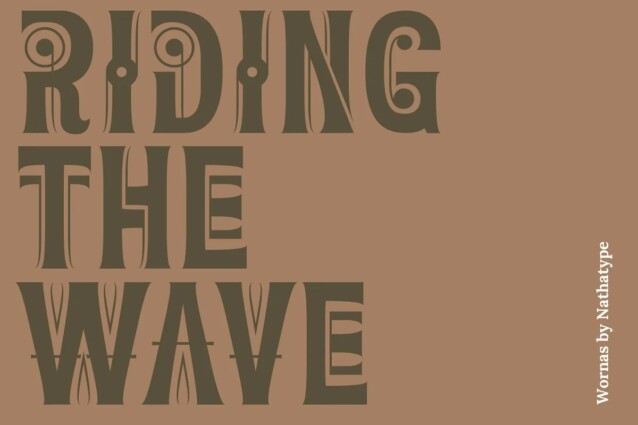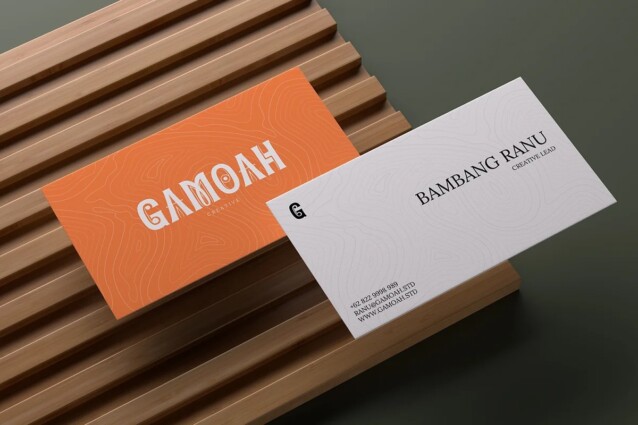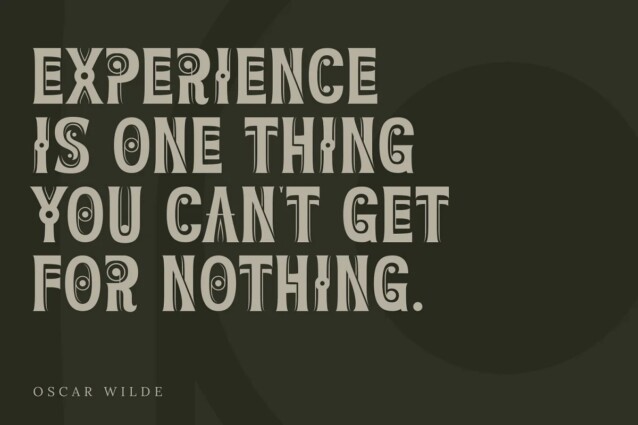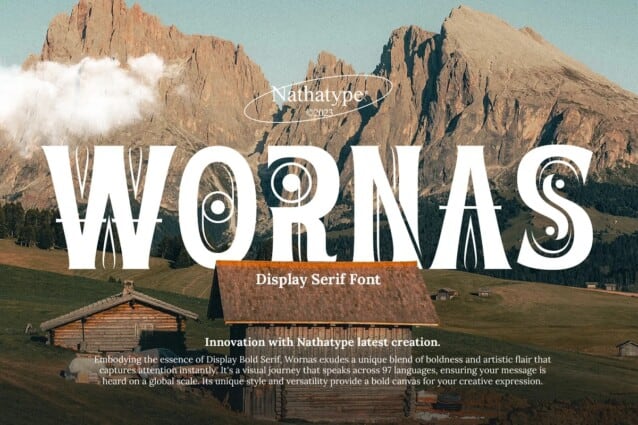
Wornas Font
Wornas Font is a bold and authentic display font crafted & designed by Din Studio. With its bold weight, Wornas makes a powerful statement. What sets it apart is its artistic flair. These unique embellishments add a layer of depth and visual interest compared to other display fonts.
The generous spacing between characters and lines in Wornas enhances legibility and creates a sense of openness. The inline details in this font are a stroke of design genius. These delicate lines run parallel to the edges of the letters, adding a modern and unique twist to the font. The result is a harmonious blend of classic and contemporary design elements that captivate the eye and leave a lasting impression.